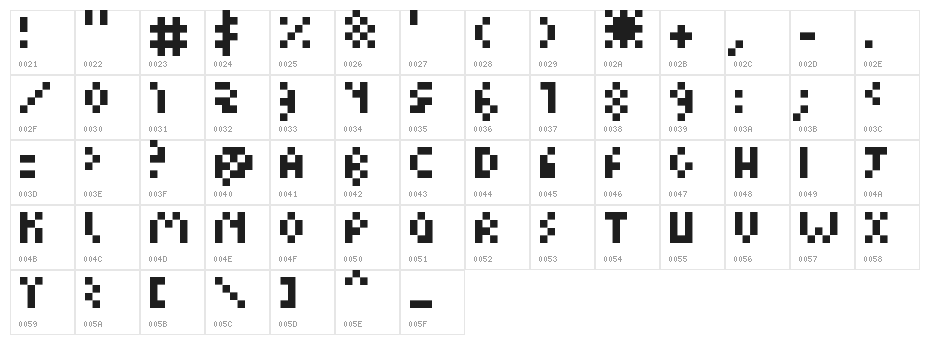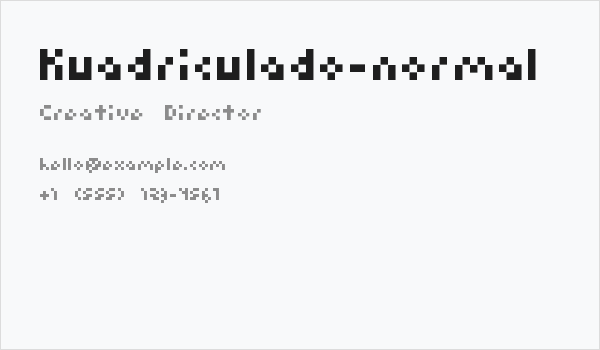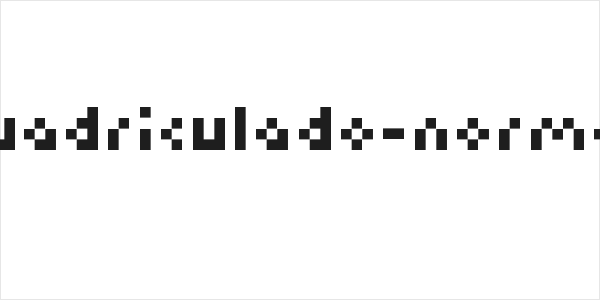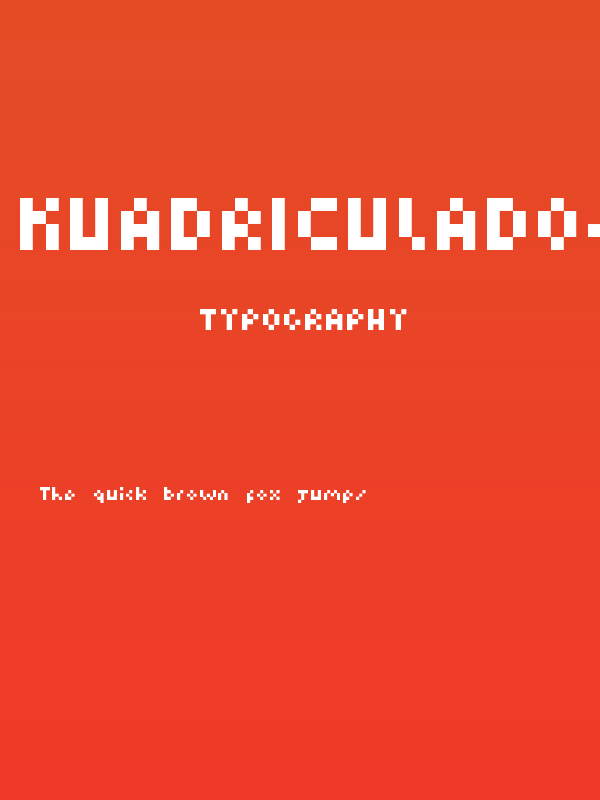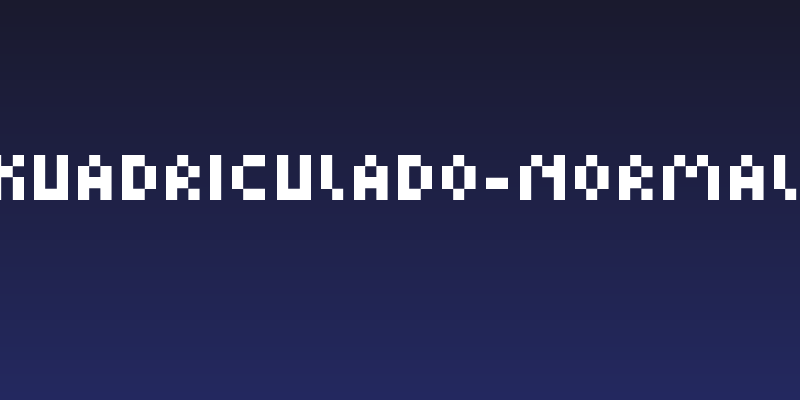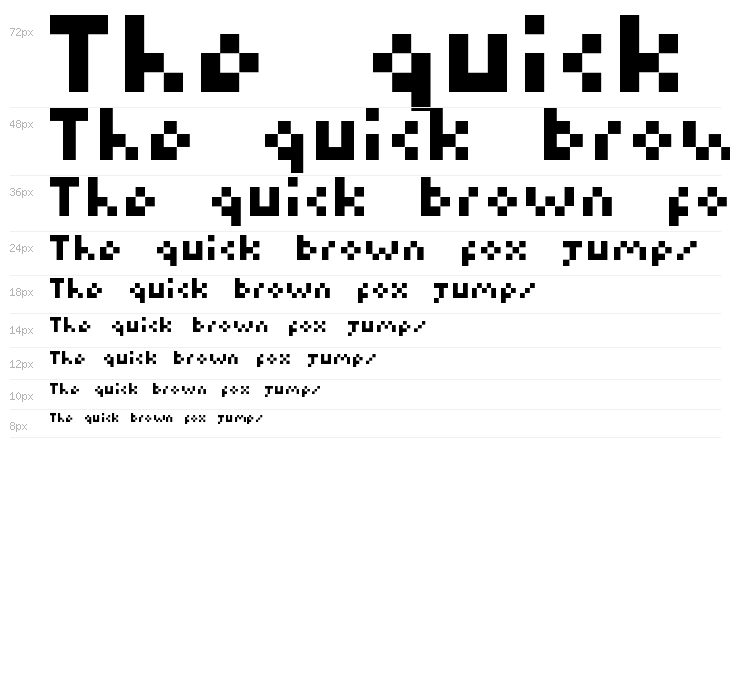
Kuadriculado-normal Font
Kuadriculado-normal Description
This font features a distinct pixelated design, reminiscent of early digital displays and retro video games. Each character is constructed with a grid-like pattern, giving it a blocky and geometric appearance. The uniformity in the pixel size across all characters creates a cohesive and structured look. Despite its rigid form, the font maintains readability and a unique charm. The uppercase and lowercase letters, as well as numbers and special characters, all adhere to this pixelated style, making it ideal for projects that aim to evoke nostalgia or a digital aesthetic.
| Overall Style | Retro, Digital |
| Proposed Projects | Ideal for video game design, digital art projects, retro-themed posters, and tech-related branding. |